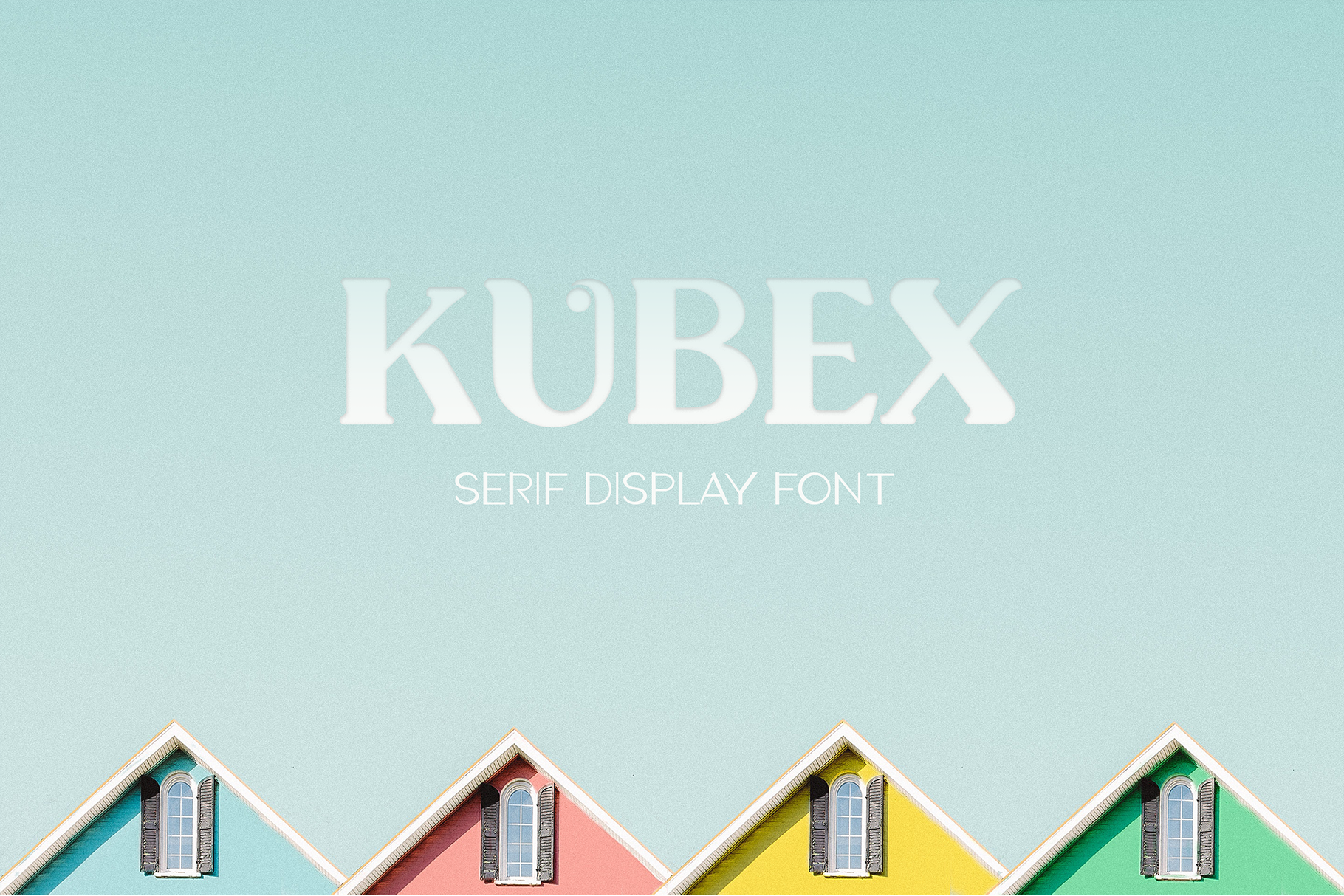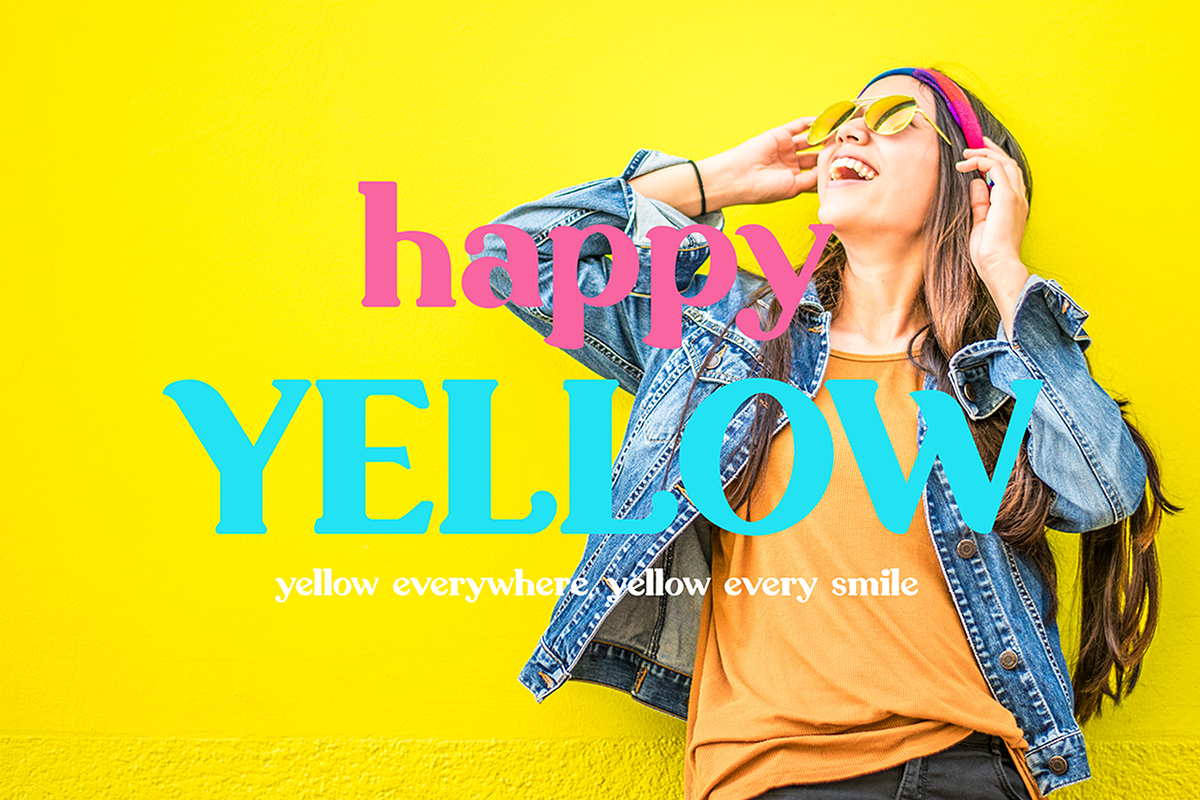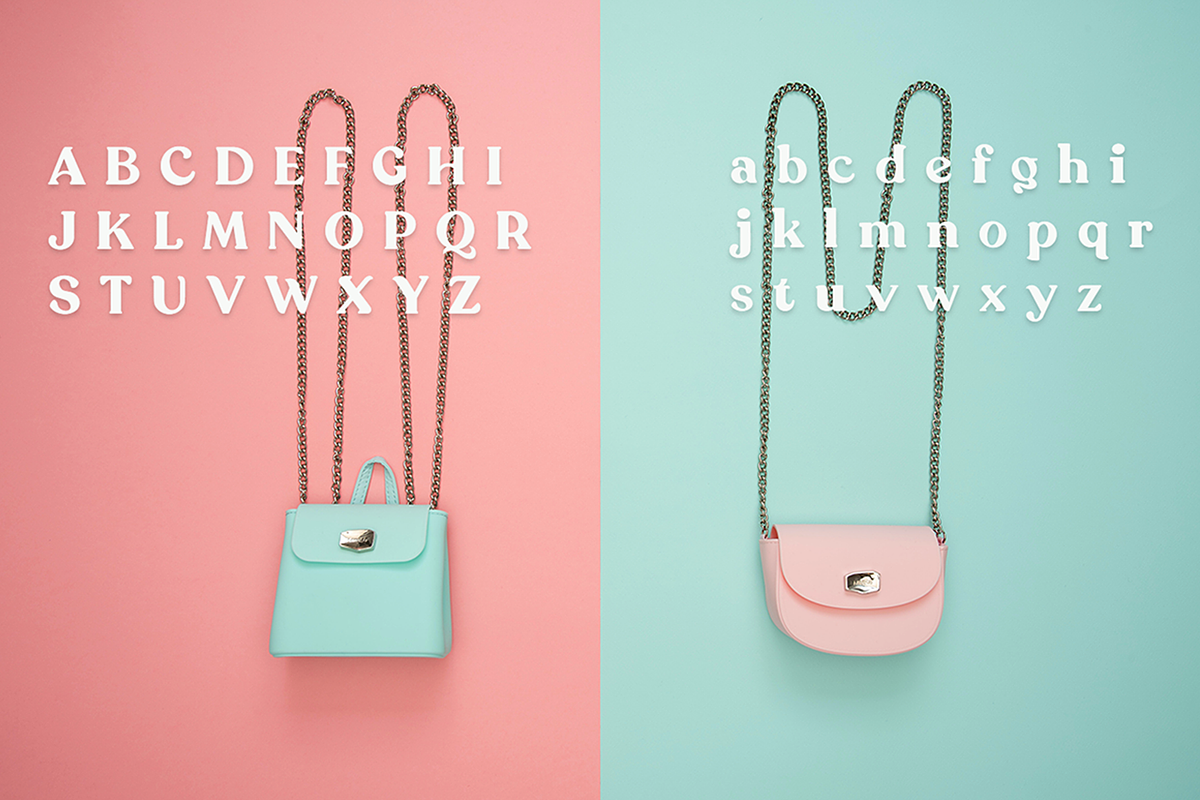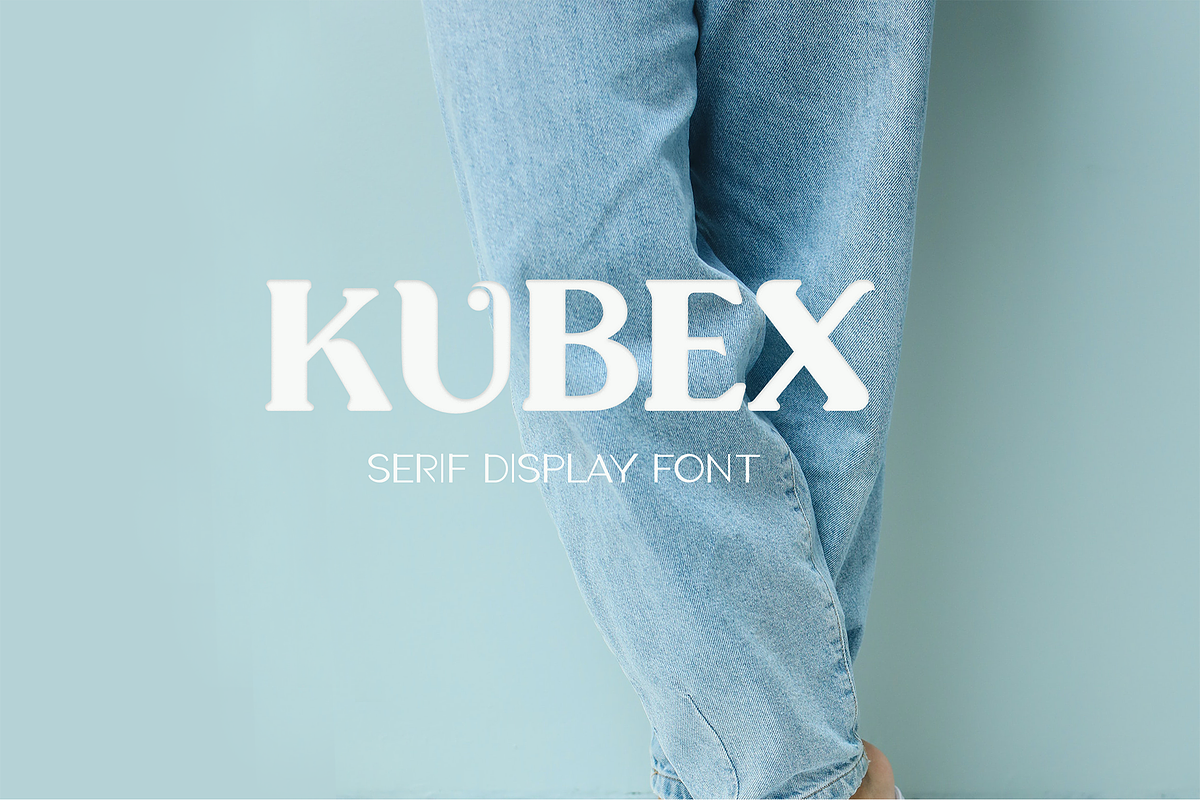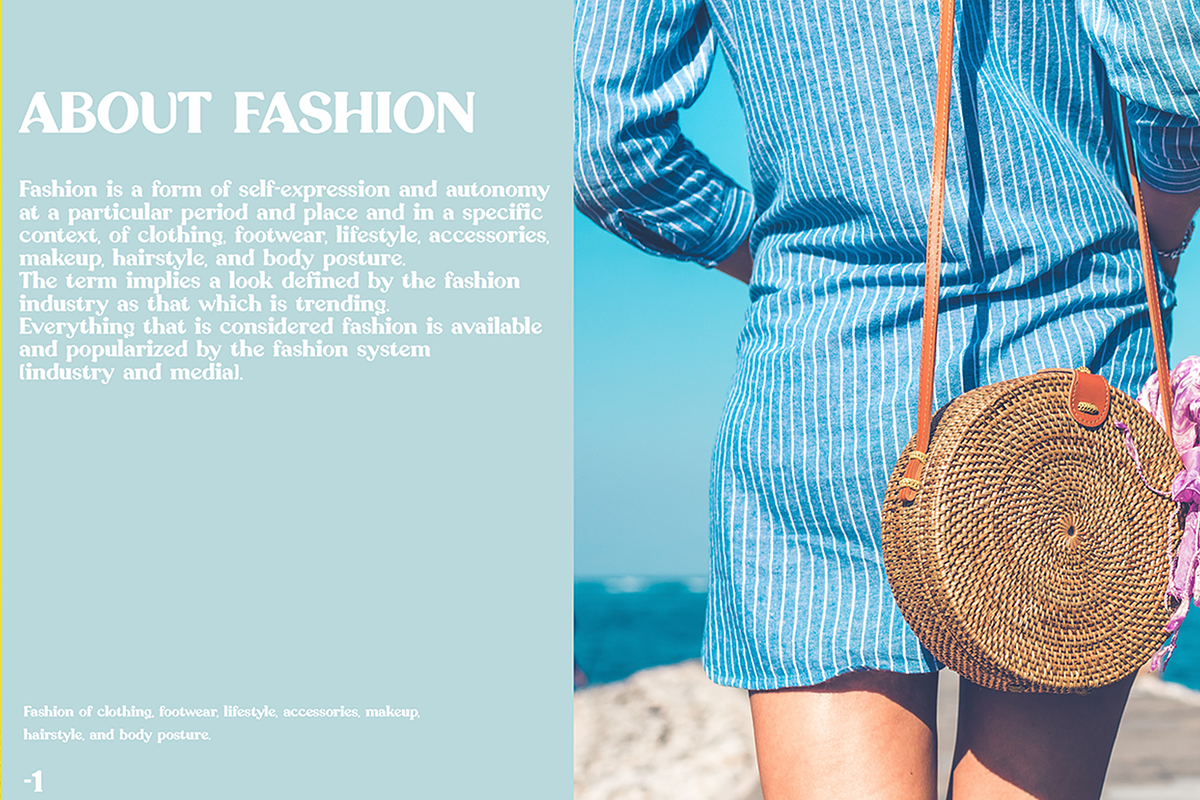
Kubex - Serif Display Font
Introducing Kubex, a simple, beauty and simple serif font. So perfect for you who needs a typeface for logo designs, magazine, social media, brochure, and many more.